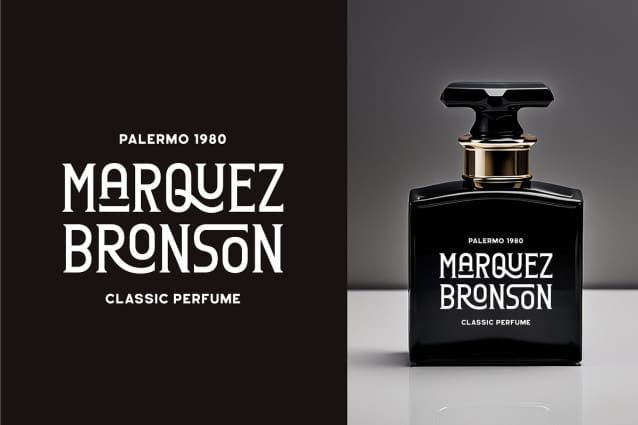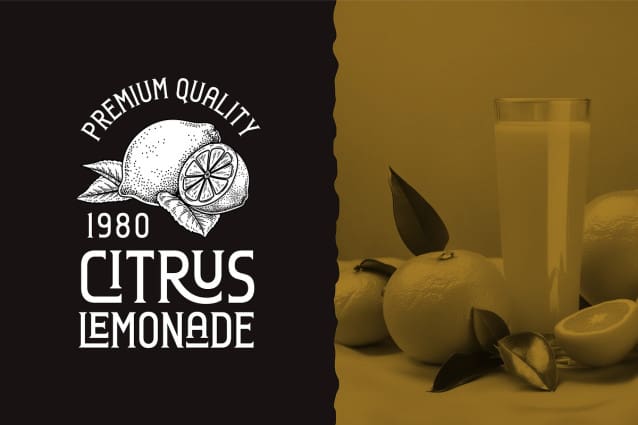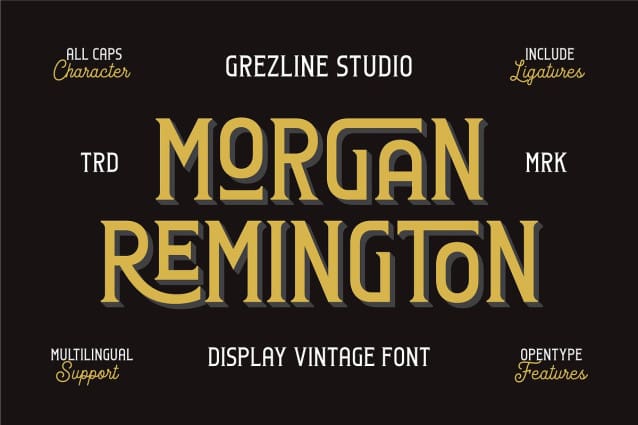
Morgan Remington Font
Morgan Remington Font is a font that you can use to make a vintage logo for branding, typography design, magazine or book cover, website header, product packaging, t-shirt design, label poster and many more.